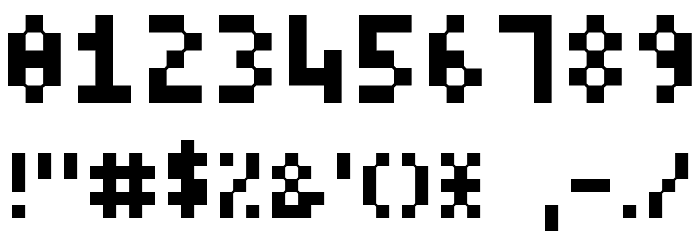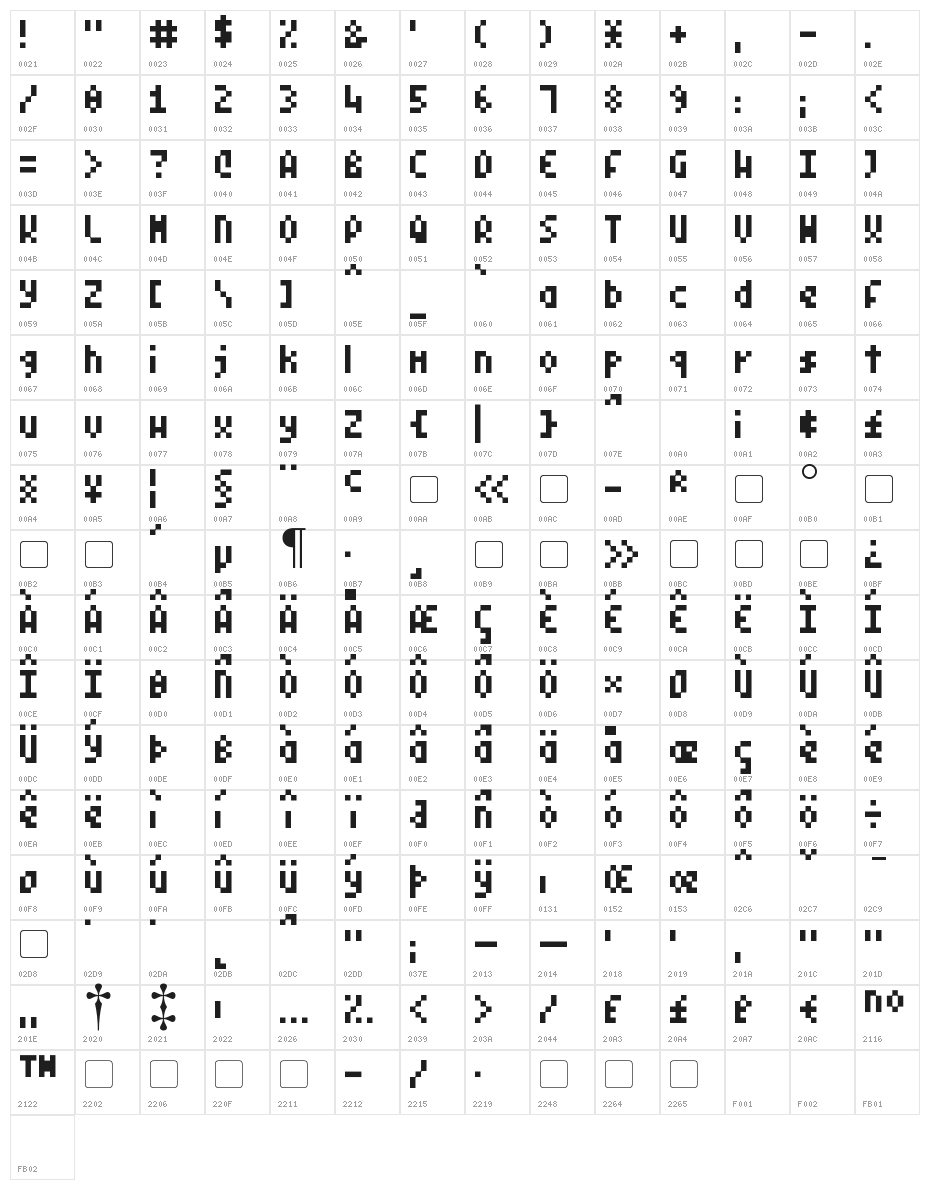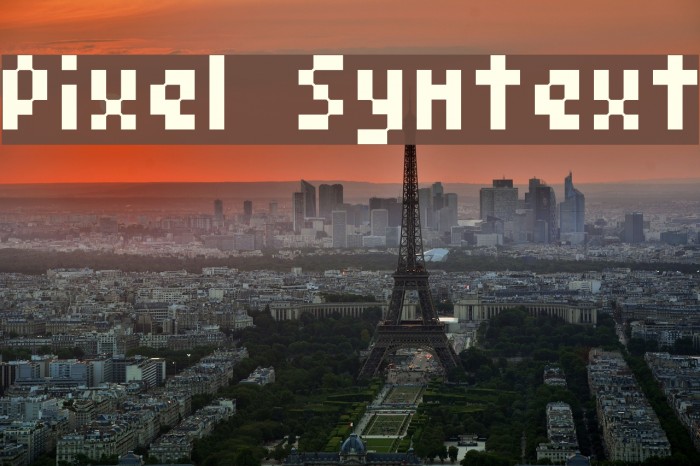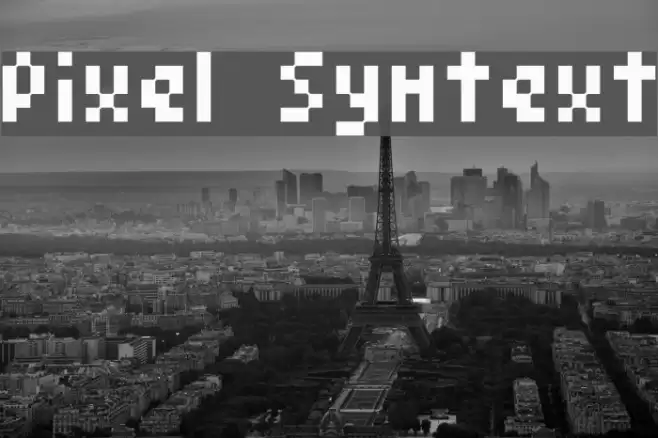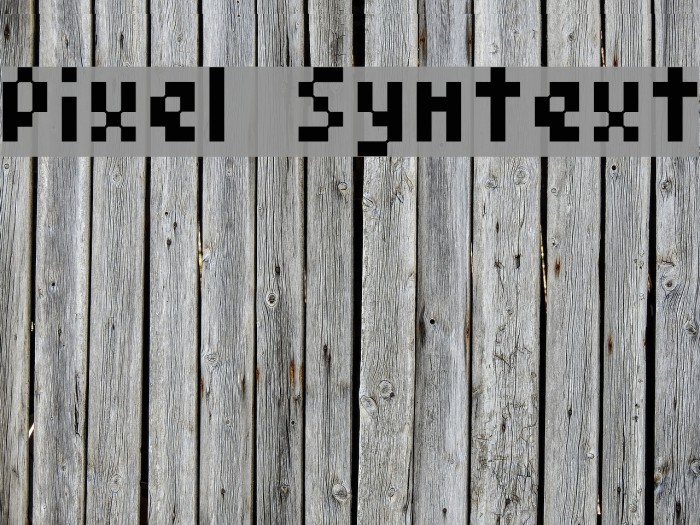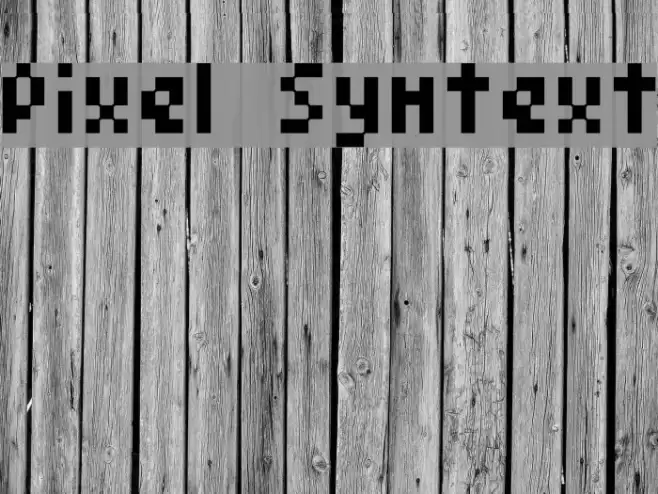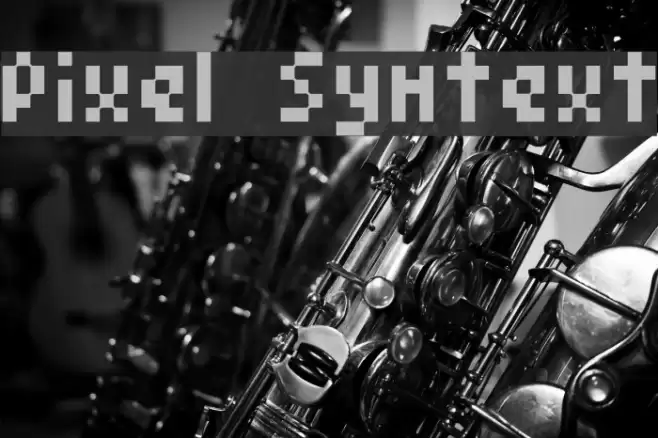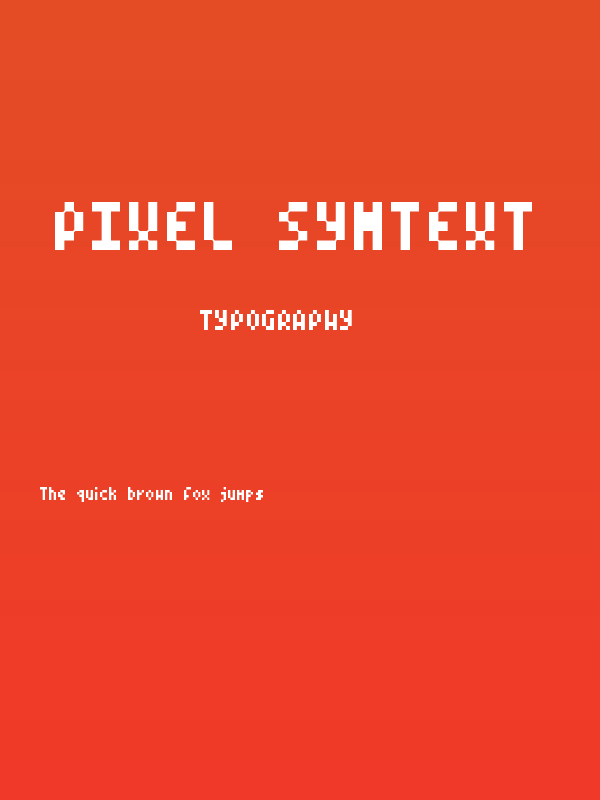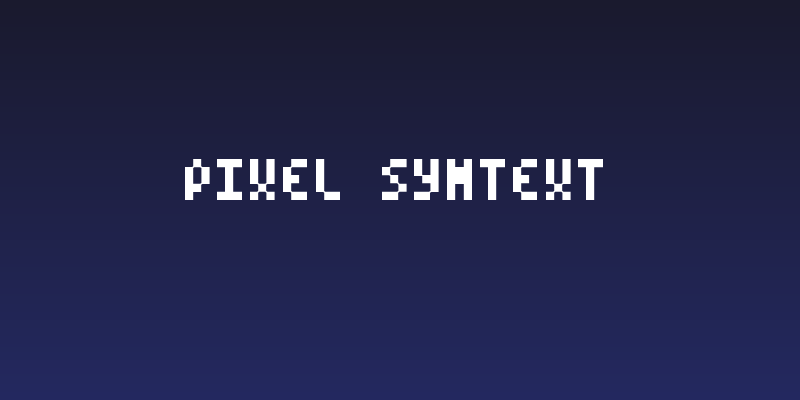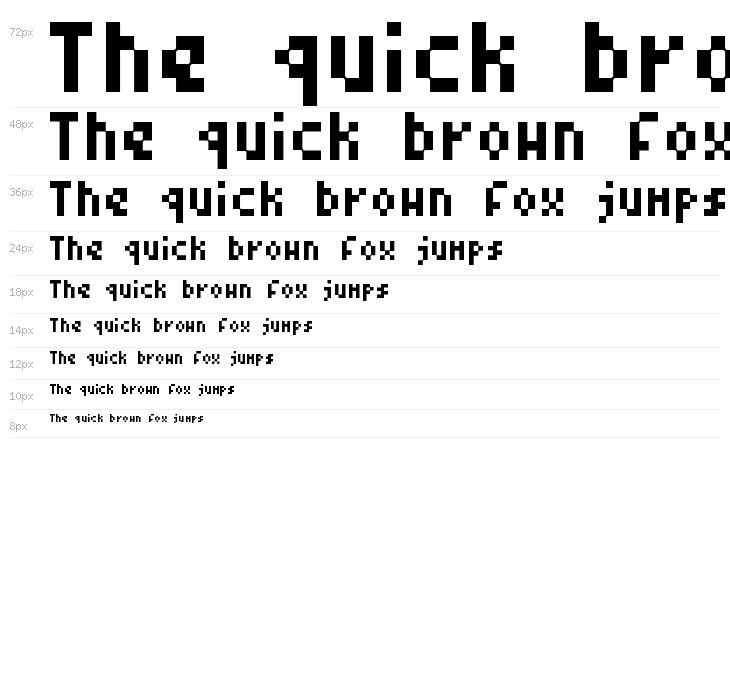
Pixel Symtext Font
Pixel Symtext Description
This font features a distinct pixelated design, reminiscent of early digital displays and retro video games. Each character is constructed with a blocky, grid-like appearance, emphasizing a nostalgic and playful aesthetic. The uppercase and lowercase letters maintain a consistent height, contributing to a uniform look. Numbers and special characters follow the same pixelated style, ensuring cohesion across all elements. The font's simplicity and geometric structure make it highly legible, even at smaller sizes, while its unique style adds a touch of vintage charm.
| Use Case | Logos, Headlines, Digital Art |
| Proposed Projects | Ideal for retro video game designs, digital art projects, and nostalgic branding. |